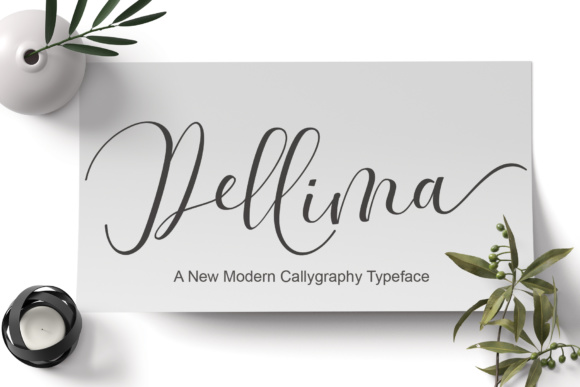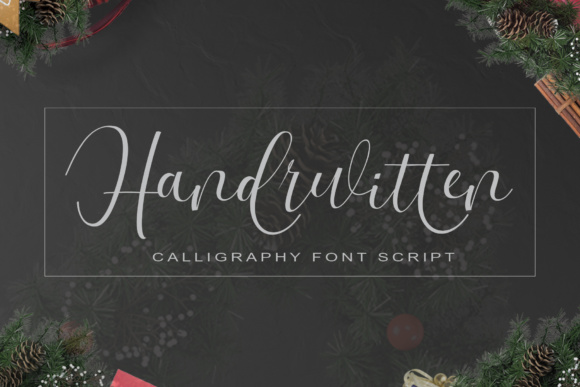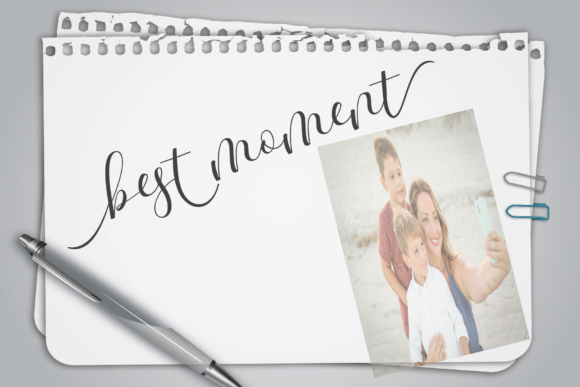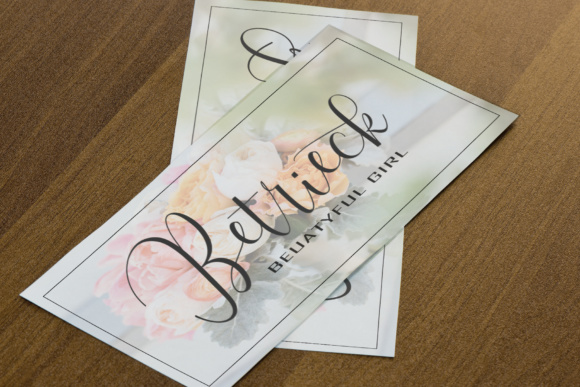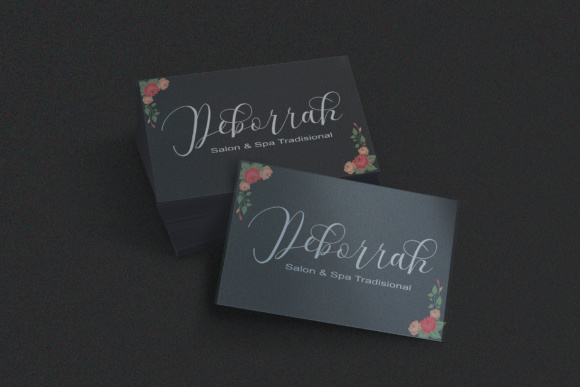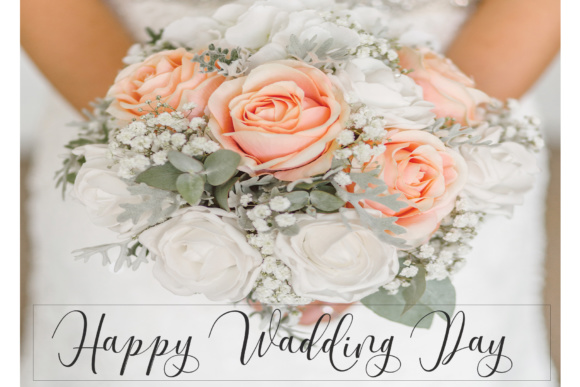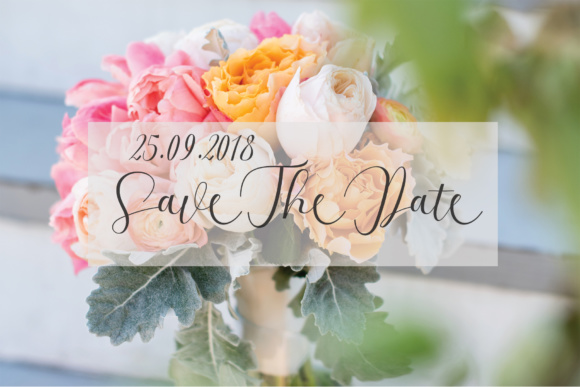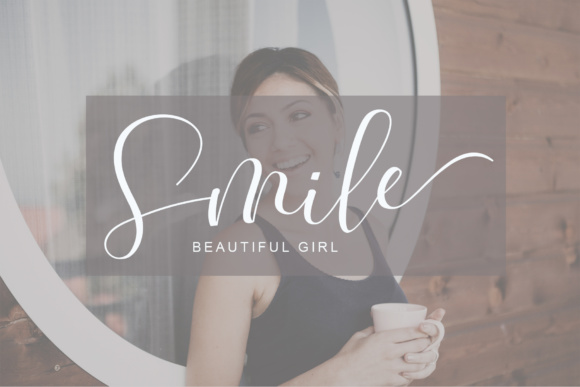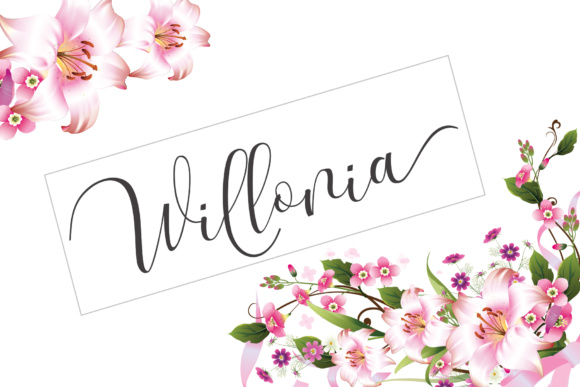
Dellima Font
About Dellima Font
The Dellima is a purely handwritten font. It has its own unique characteristics which makes it perfect for invitations, signatures, blogs, social media, and any other design that needs an unique look.